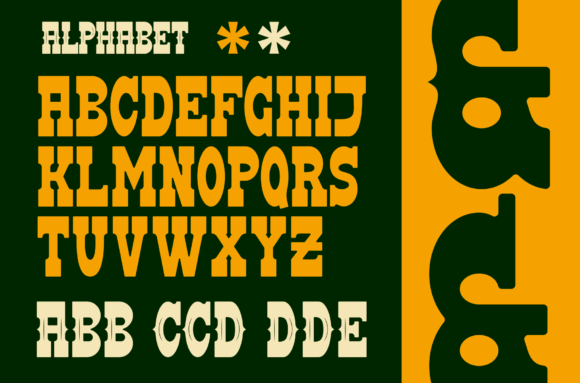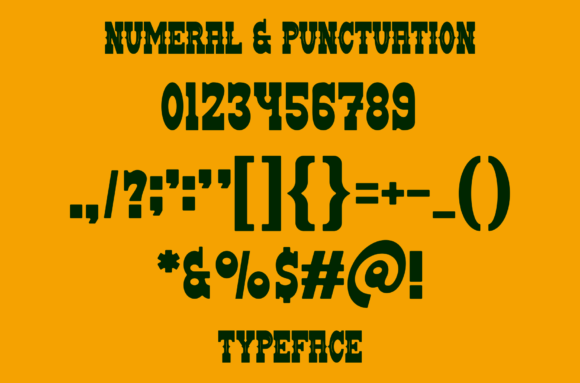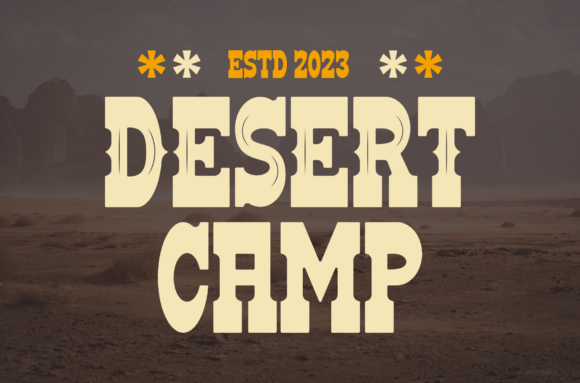
Introducing Dominant Font: Unleash the Magic in Your Designs
Are you tired of using the same old fonts in your designs? Look no further! Dominant Font is here to revolutionize your creative projects with its incredibly cool and unique display font style. With its retro yet whimsical flair, Dominant Font is sure to transport your designs to a magical world that will captivate your audience.
The Retro-Chic Appeal of Dominant Font
Dominant Font boasts a distinctive retro style that is reminiscent of vintage posters, advertisements, and logos from the 80s and 90s. Its bold, chunky letters and playful flair evoke a sense of nostalgia and fun, making it perfect for designers who want to add a touch of whimsy to their work. Whether you’re creating a logo, poster, or social media graphic, Dominant Font is sure to make your design stand out from the crowd.
What Makes Dominant Font So Unique?
So, what sets Dominant Font apart from other display fonts on the market? Here are just a few features that make it truly special:
- Retro-Chic Style: Dominant Font’s retro style is sure to transport your designs back to a bygone era of neon lights, big hair, and radical graphics.
- Whimsical Flair: With its playful letters and quirky charm, Dominant Font adds a touch of magic to any design.
- Highly Legible: Despite its bold and chunky style, Dominant Font is highly legible, even at small sizes.
- Versatile: Dominant Font is perfect for a wide range of design projects, from logos and posters to social media graphics and more.
How to Use Dominant Font in Your Designs
- Pair it with a sans-serif font: For a classic look, pair Dominant Font with a clean sans-serif font like Arial or Helvetica.
- Use it as a headline font: Dominant Font is perfect for headlines and titles, where its bold and chunky style can really make an impact.
- Add some texture and patterns: To really make your design pop, try adding some texture and patterns to complement Dominant Font’s retro-chic style.
In conclusion, Dominant Font is an incredibly cool and unique display font that is sure to bring a touch of magic to your designs. With its retro-chic style, whimsical flair, and high legibility, Dominant Font is perfect for designers and crafters alike. So why wait? Download Dominant Font today and unleash your creativity!